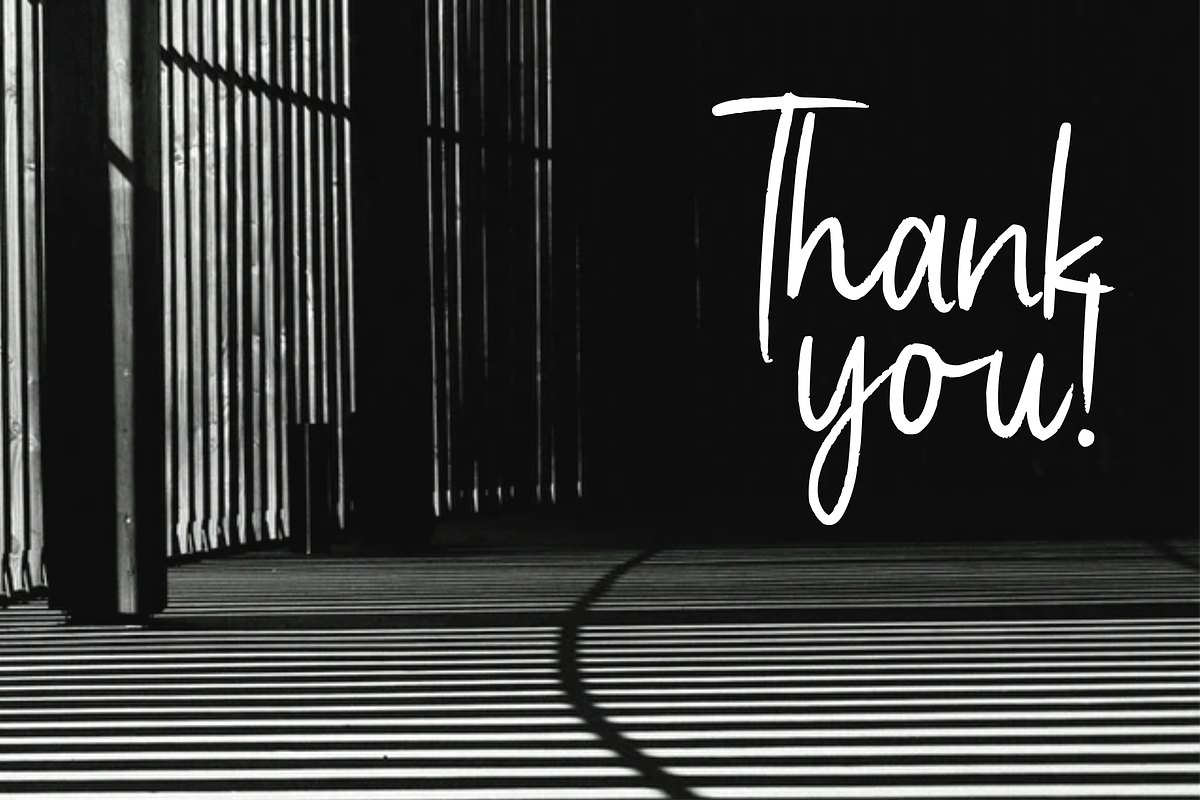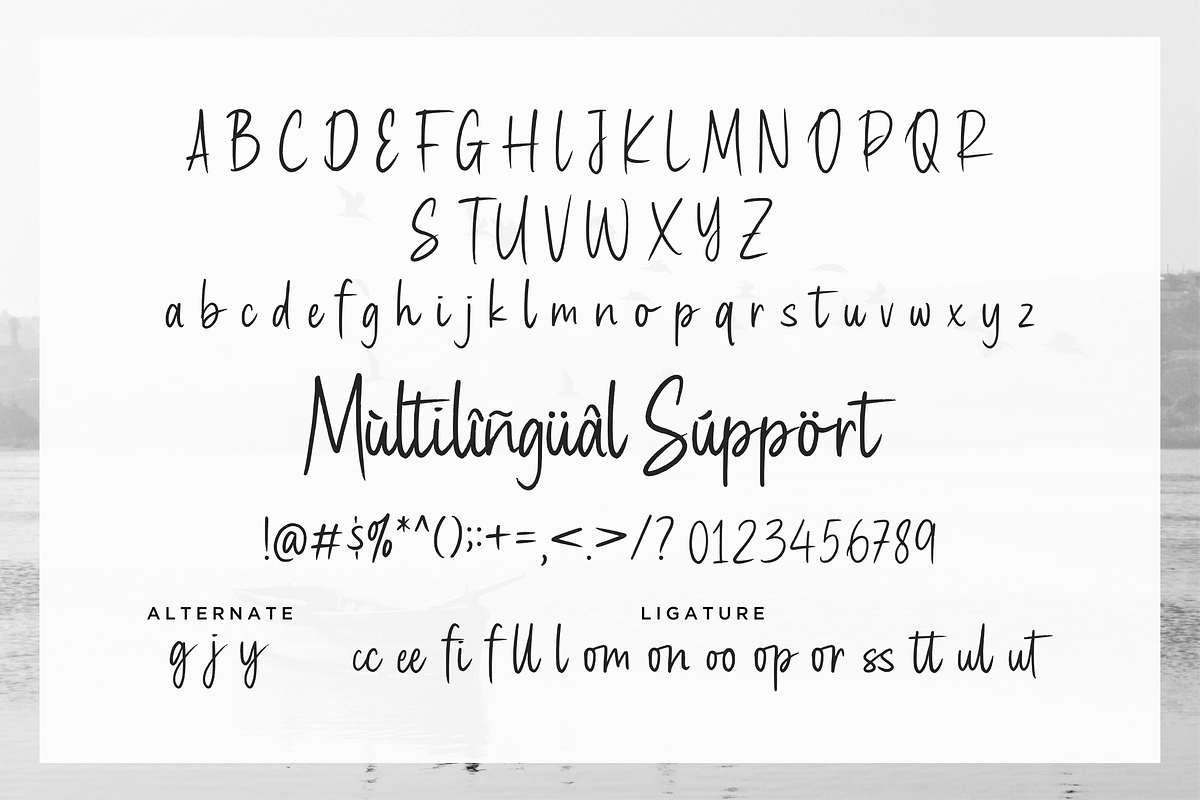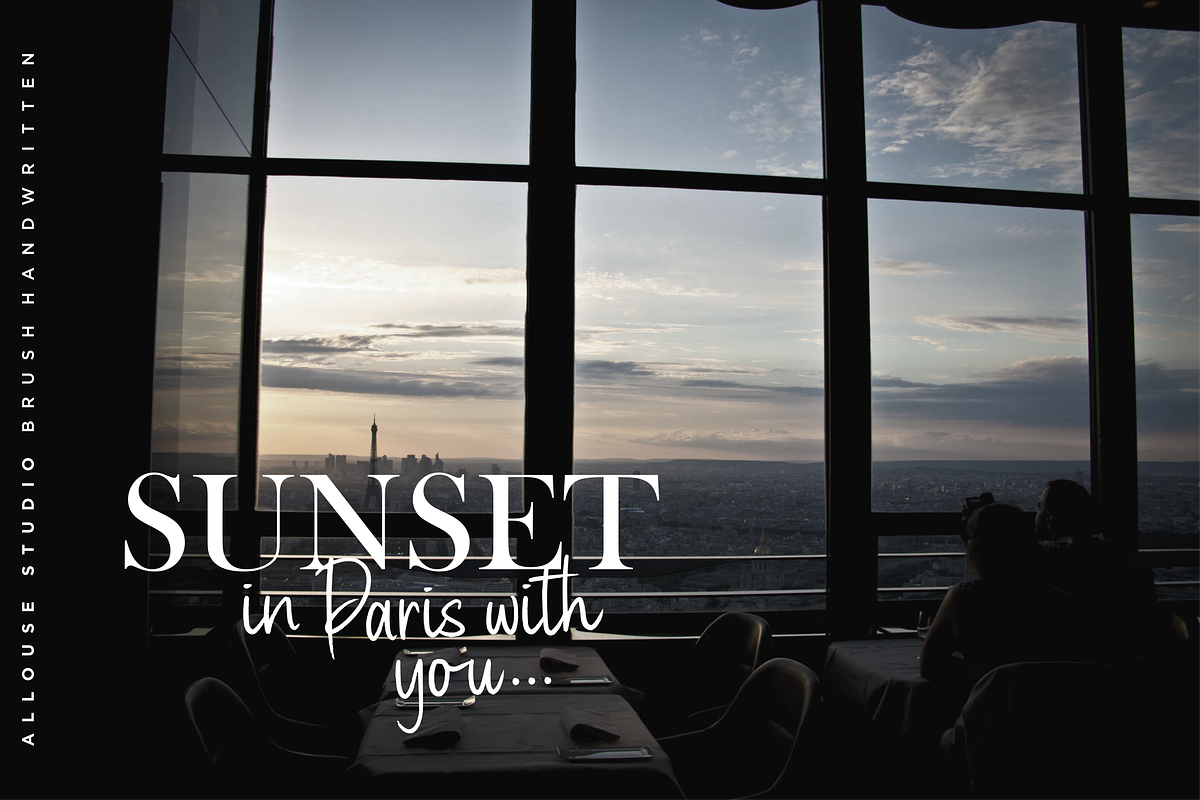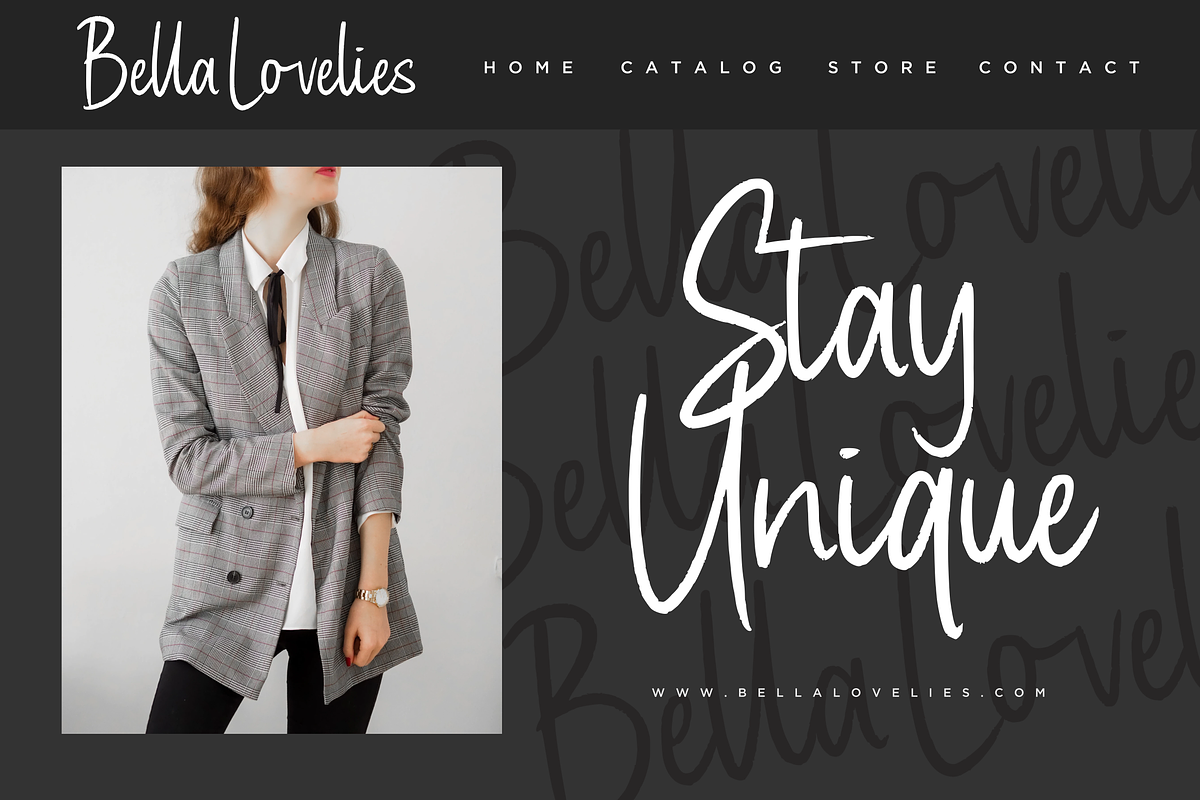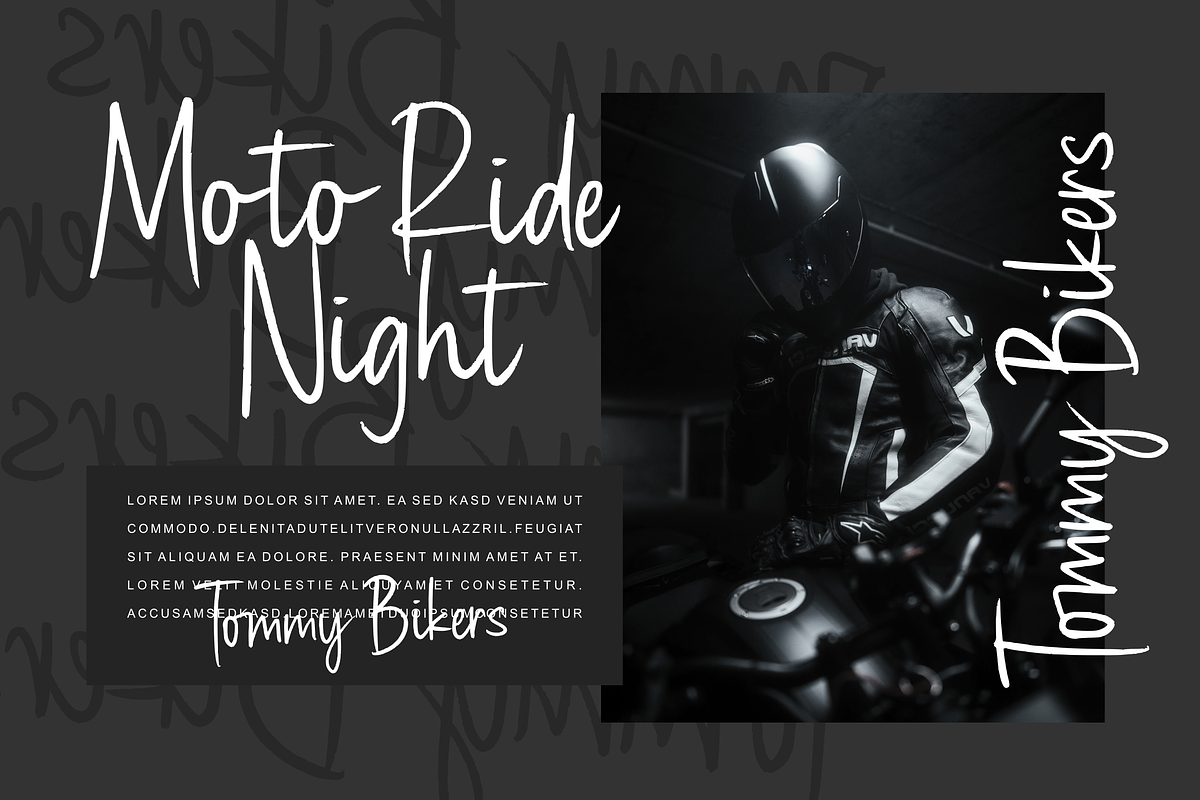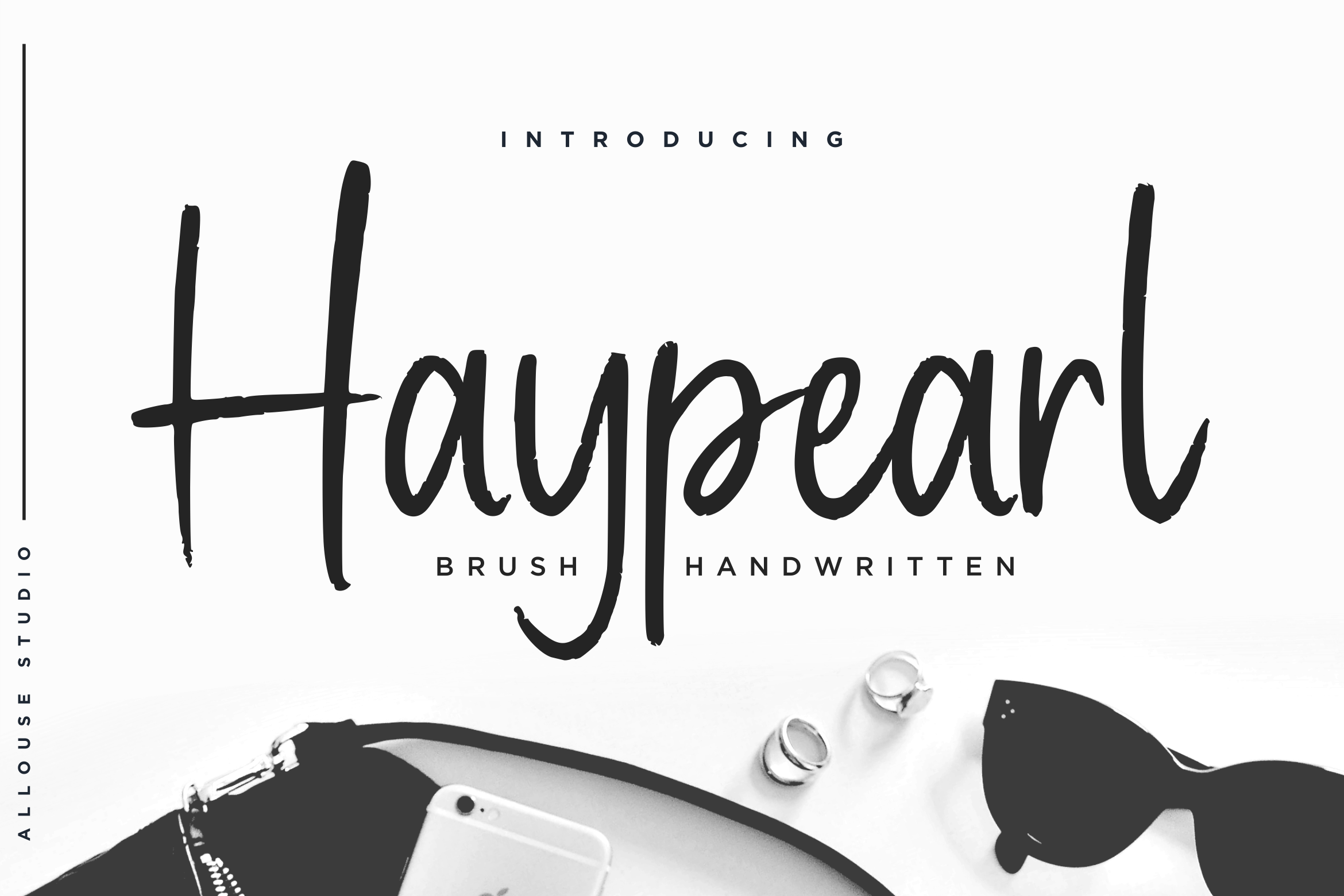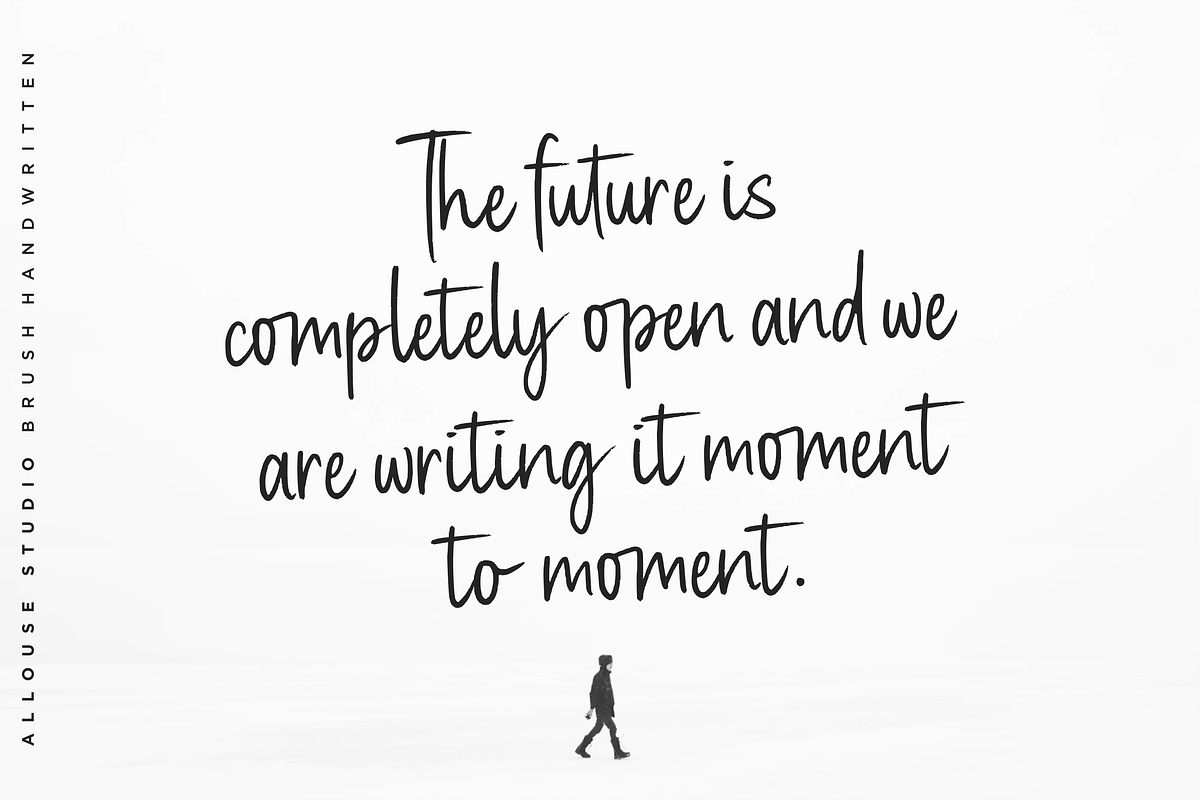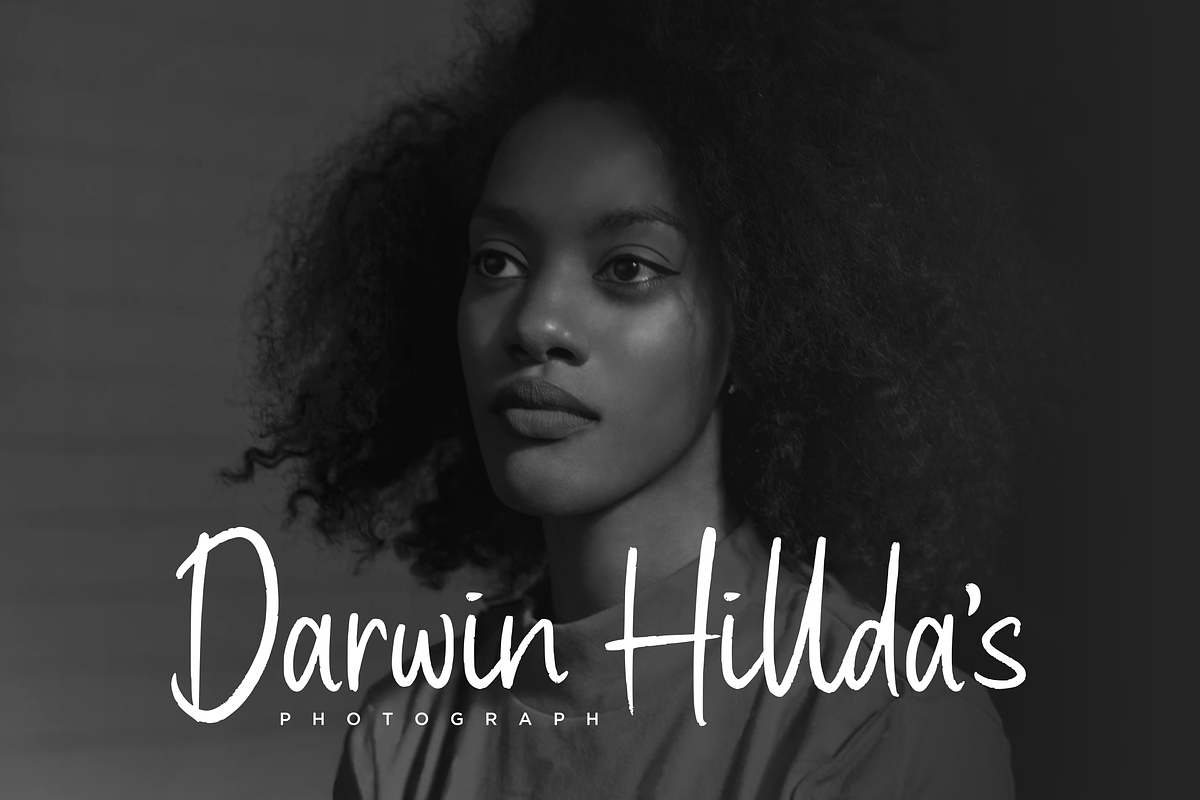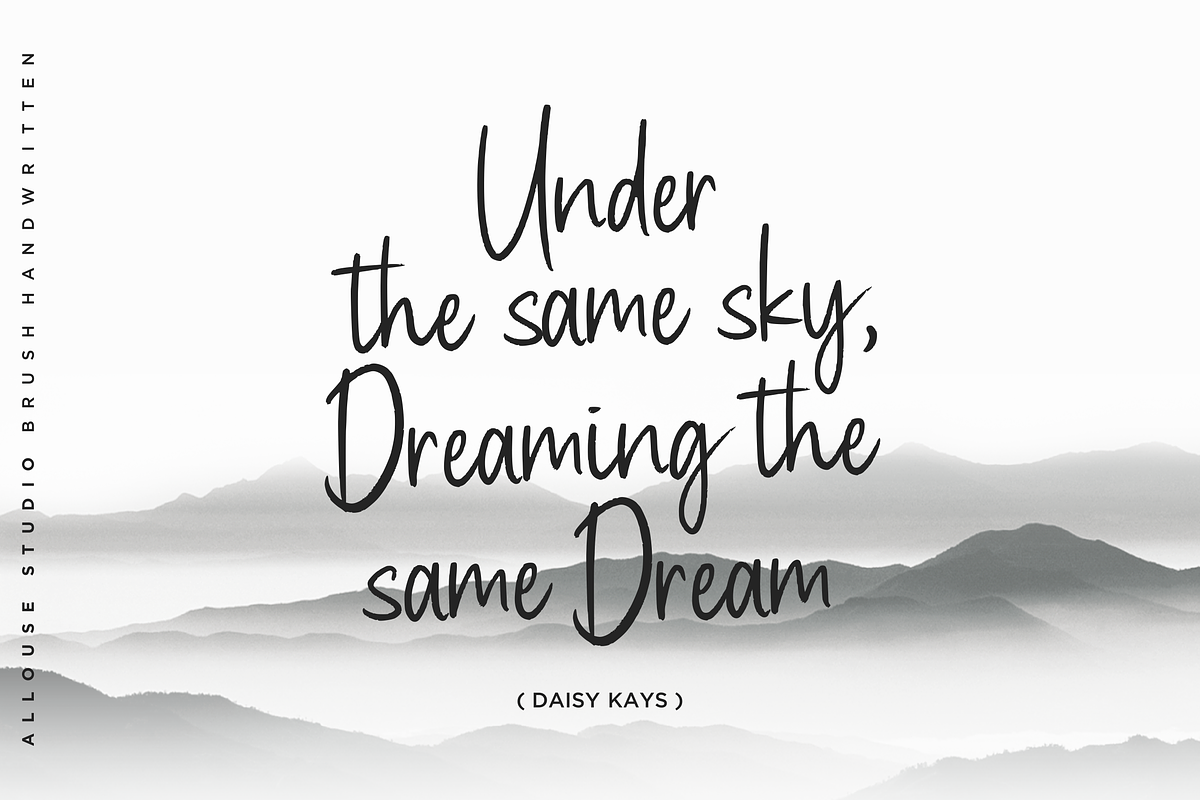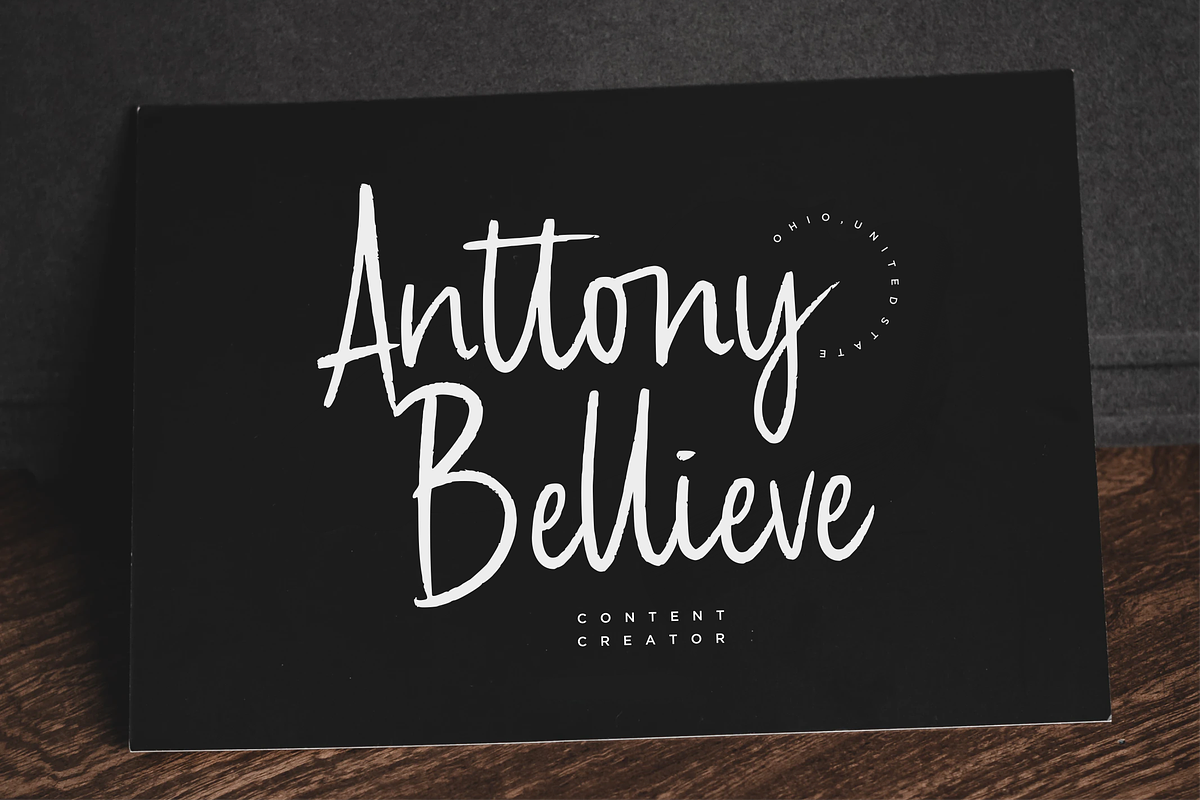
Haypearl Font
Proudly Presenting, Haypearl a Brush Handwritten Font
Haypearl is perfect for any titles, logo, product packaging, branding project, megazine, social media, wedding, or just used to express words above the background.
Haypearl also come with Multi-Lingual Support.